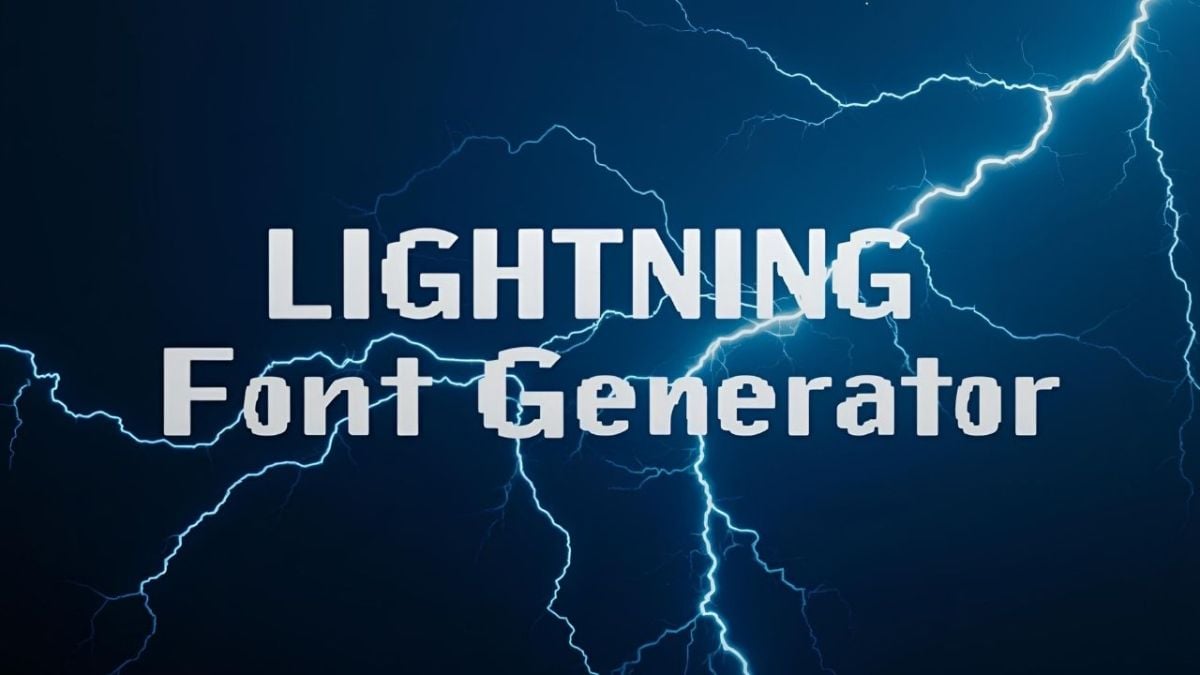
⚡ Lightning Font Generator ⚡
The Plasma Thunder font collection features authentic electric-themed typefaces that capture the power and energy of lightning. From the dramatic Electric Storm to the sleek Thunder Bolt and Lightning Strike variants, these fonts bring electric energy to any design project. Perfect for gaming content, electric themes, storm designs, and any project that needs that electrifying aesthetic.
Our Lightning Font Generator lets you create professional electric-themed text using the complete lightning font collection including Electric Storm, Thunder Bolt, Lightning Strike, Storm Surge, and Plasma Thunder fonts. Perfect for gaming content, electric-themed designs, and lightning fan projects.
⚡ Authentic Lightning Fonts
Access the complete Lightning Electric Shock font family including all variants for authentic electric-themed typography.
⚡ Perfect For Lightning Font